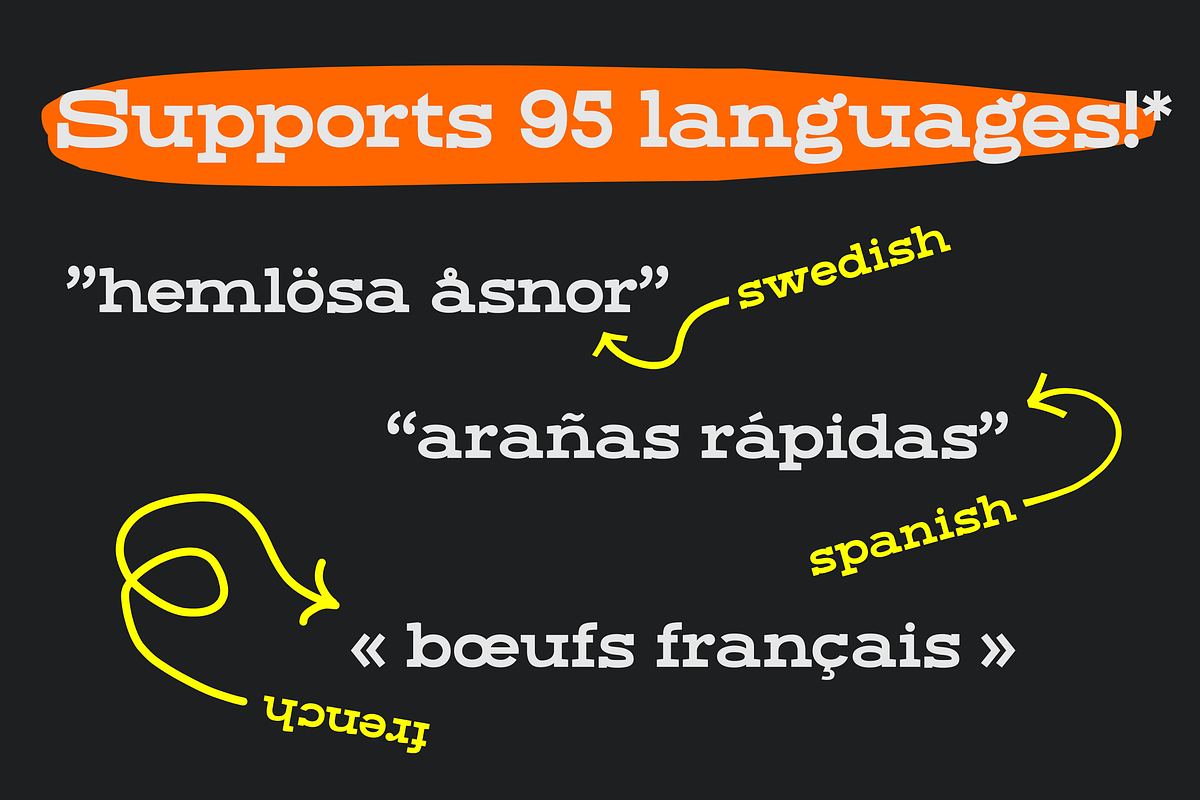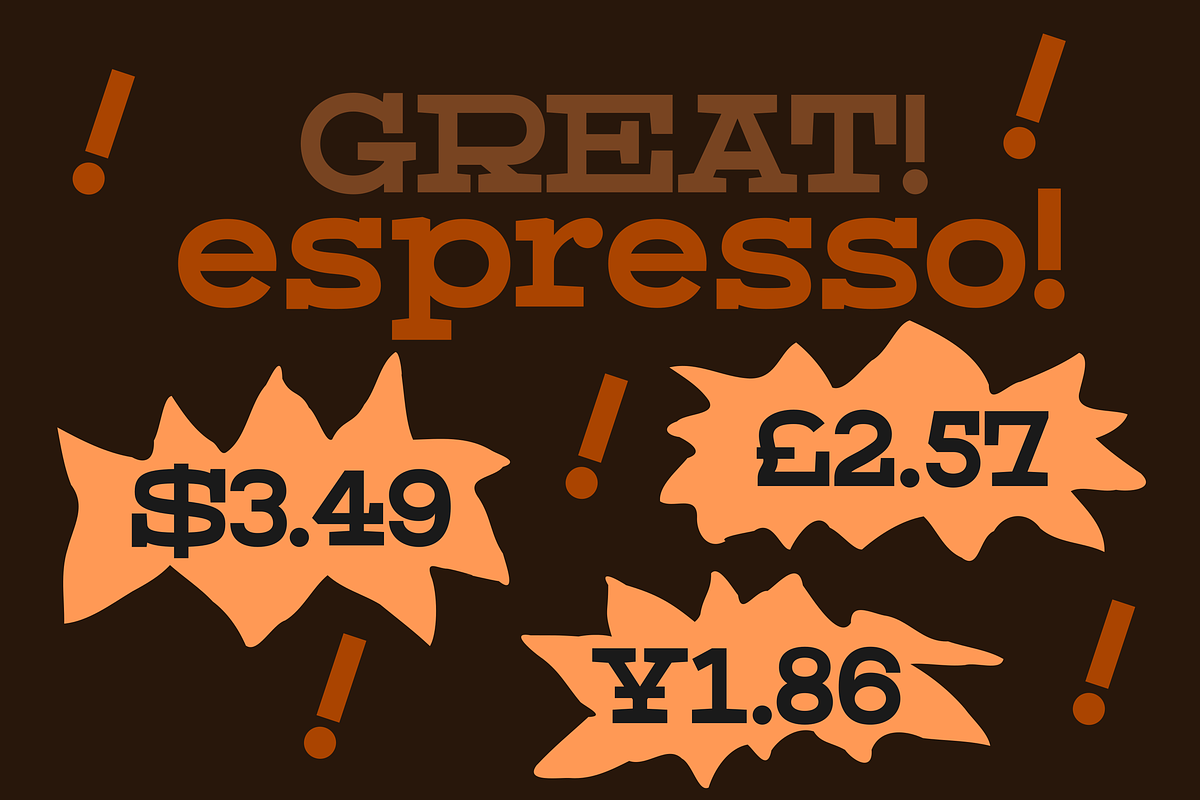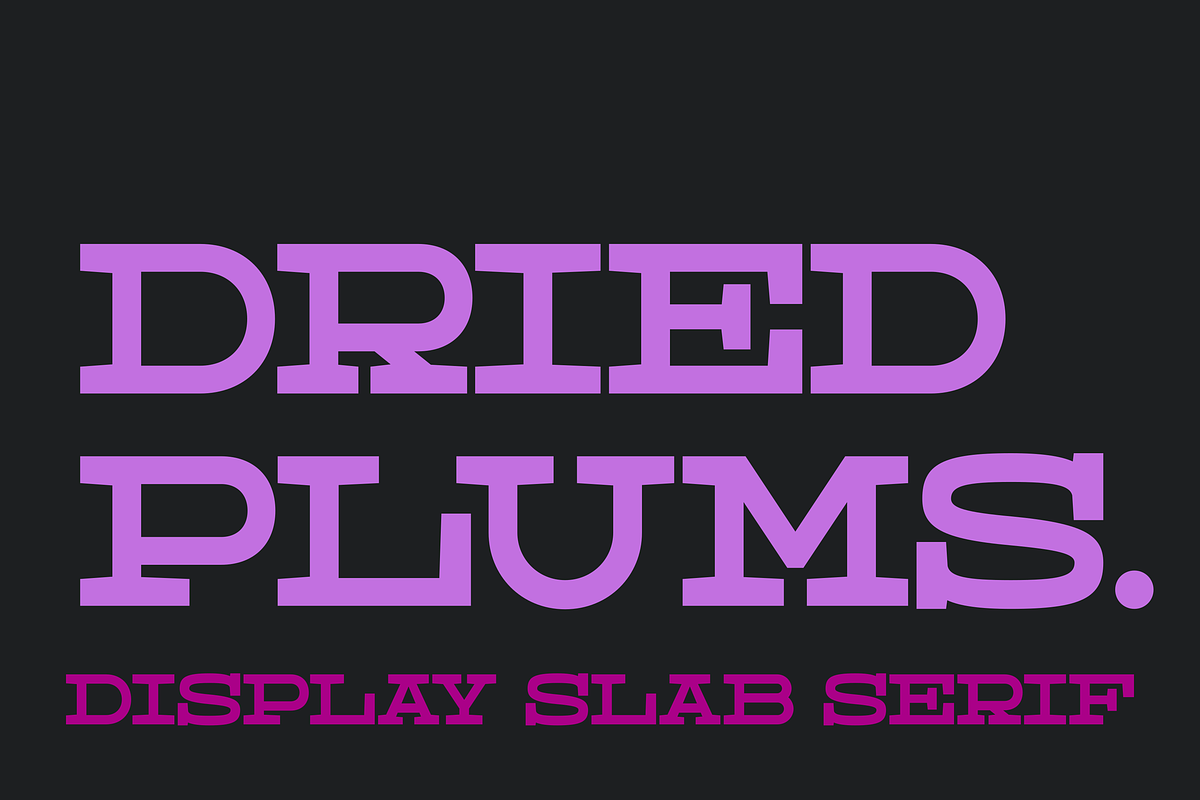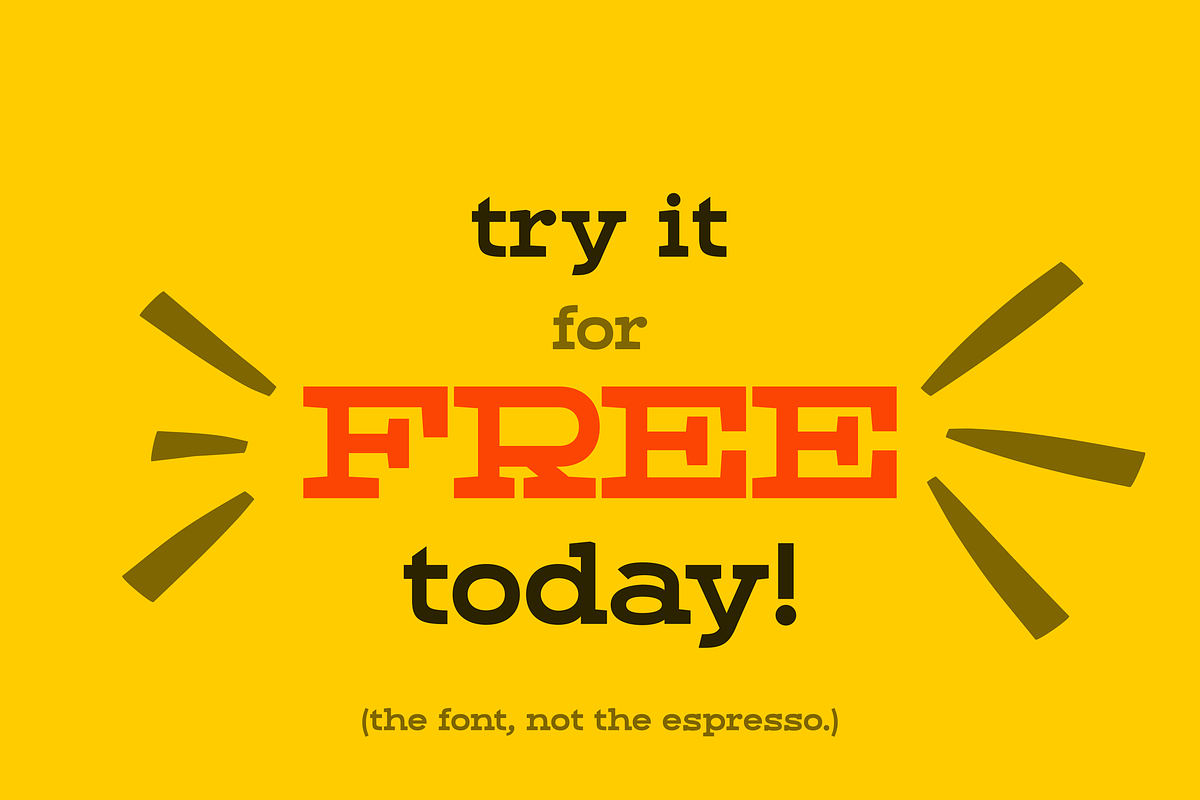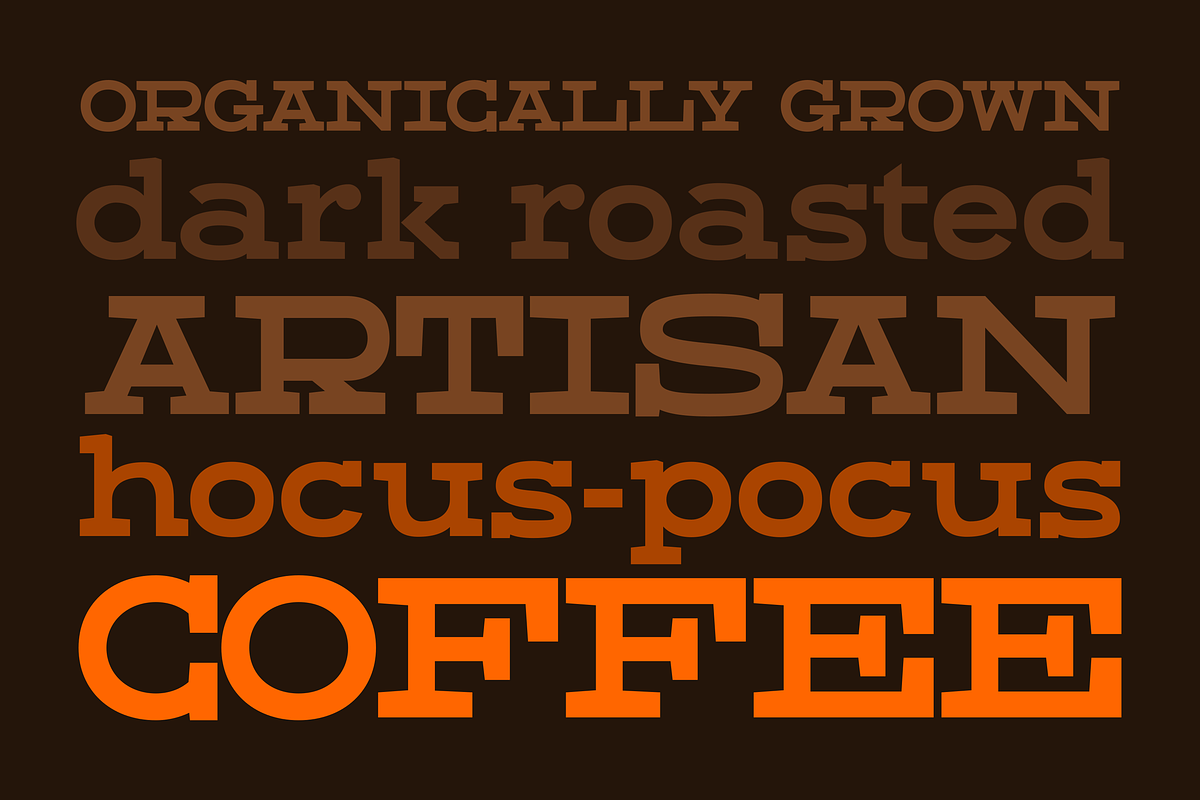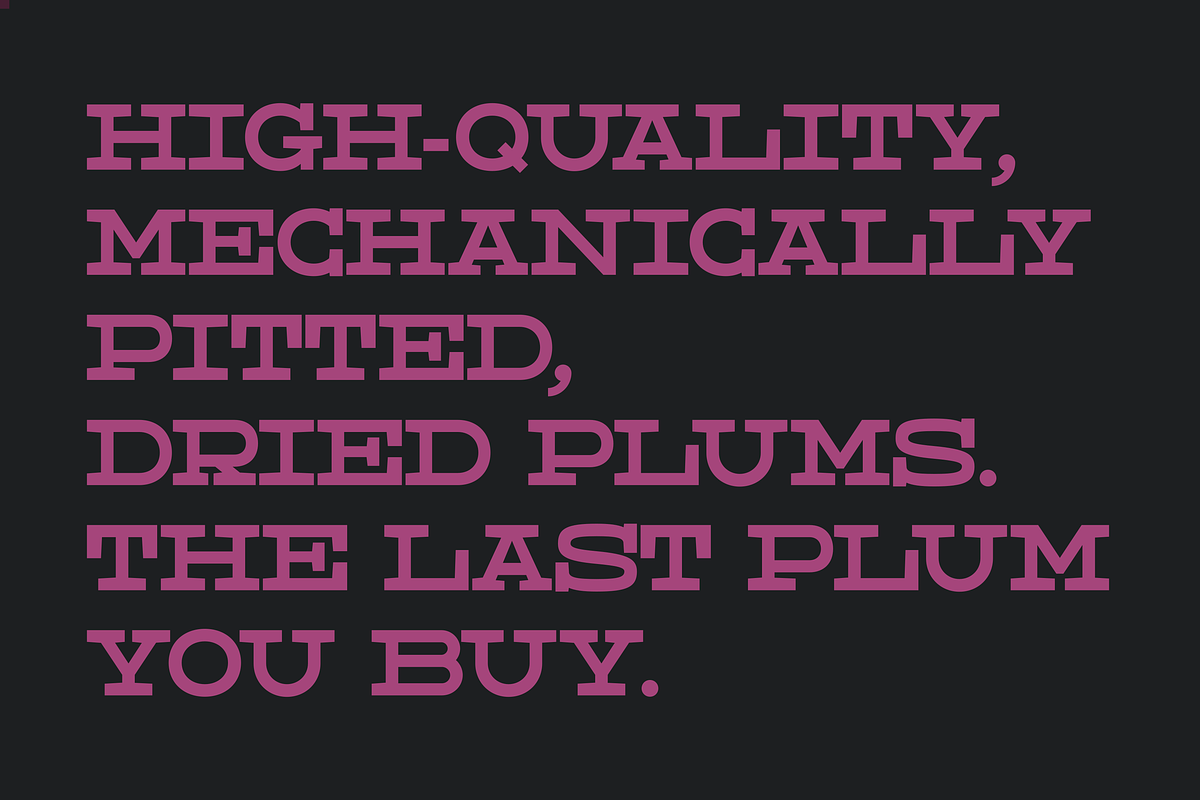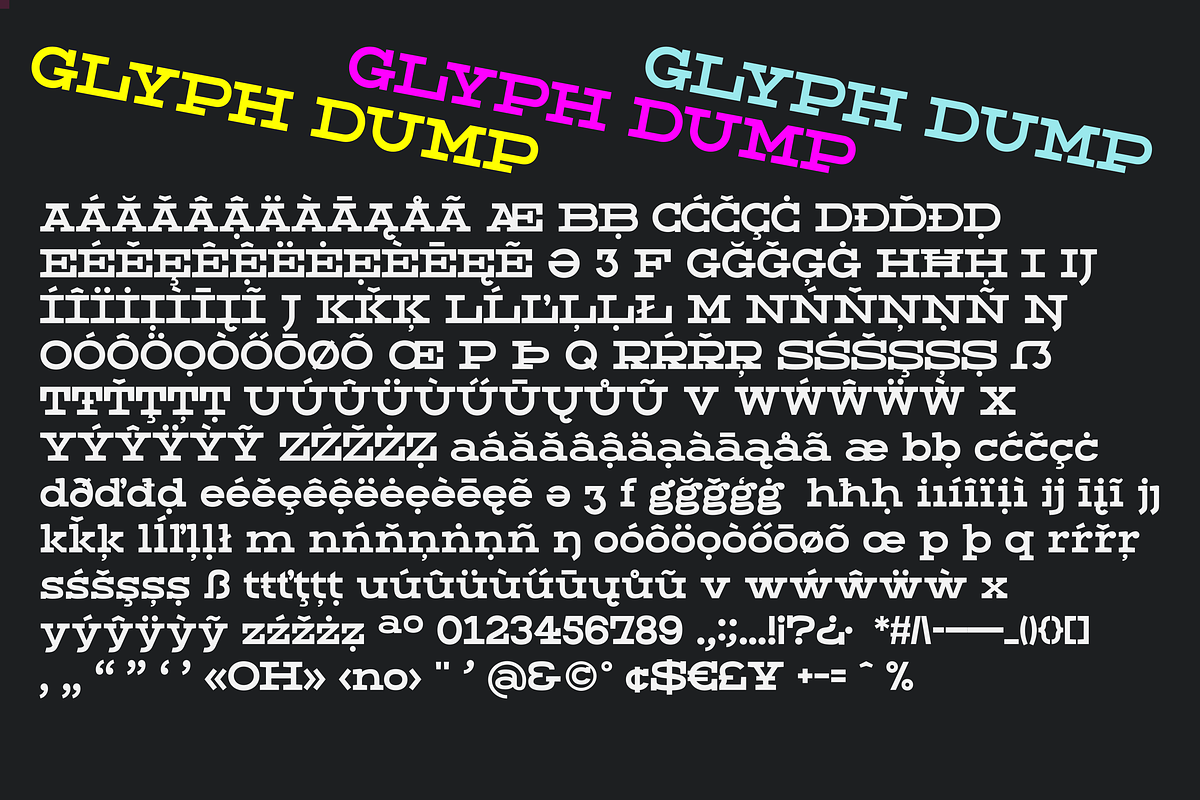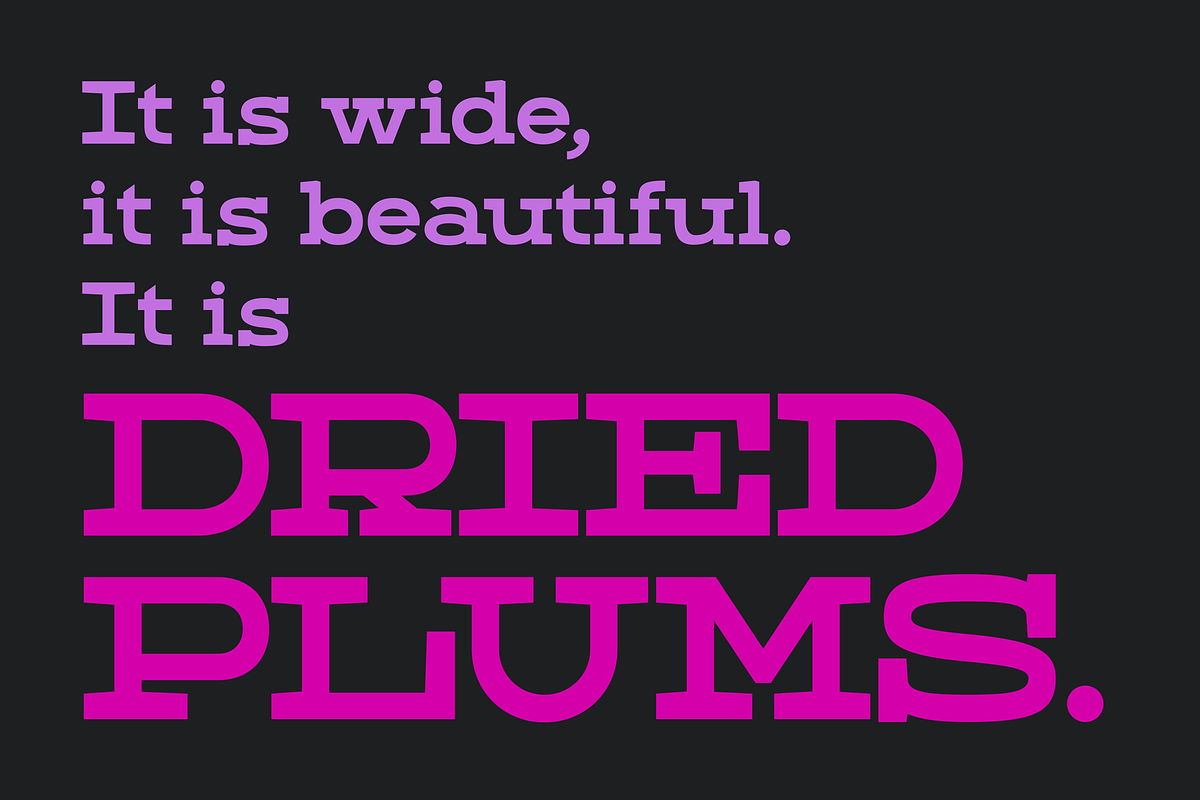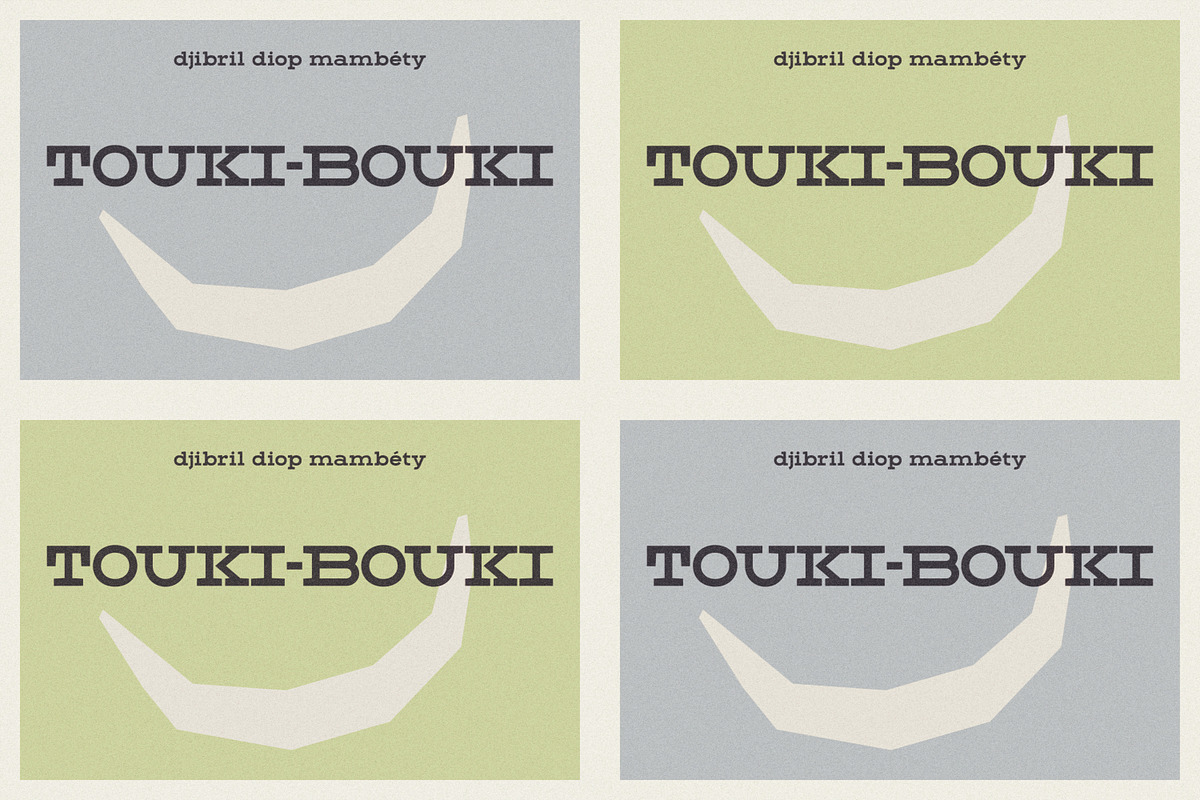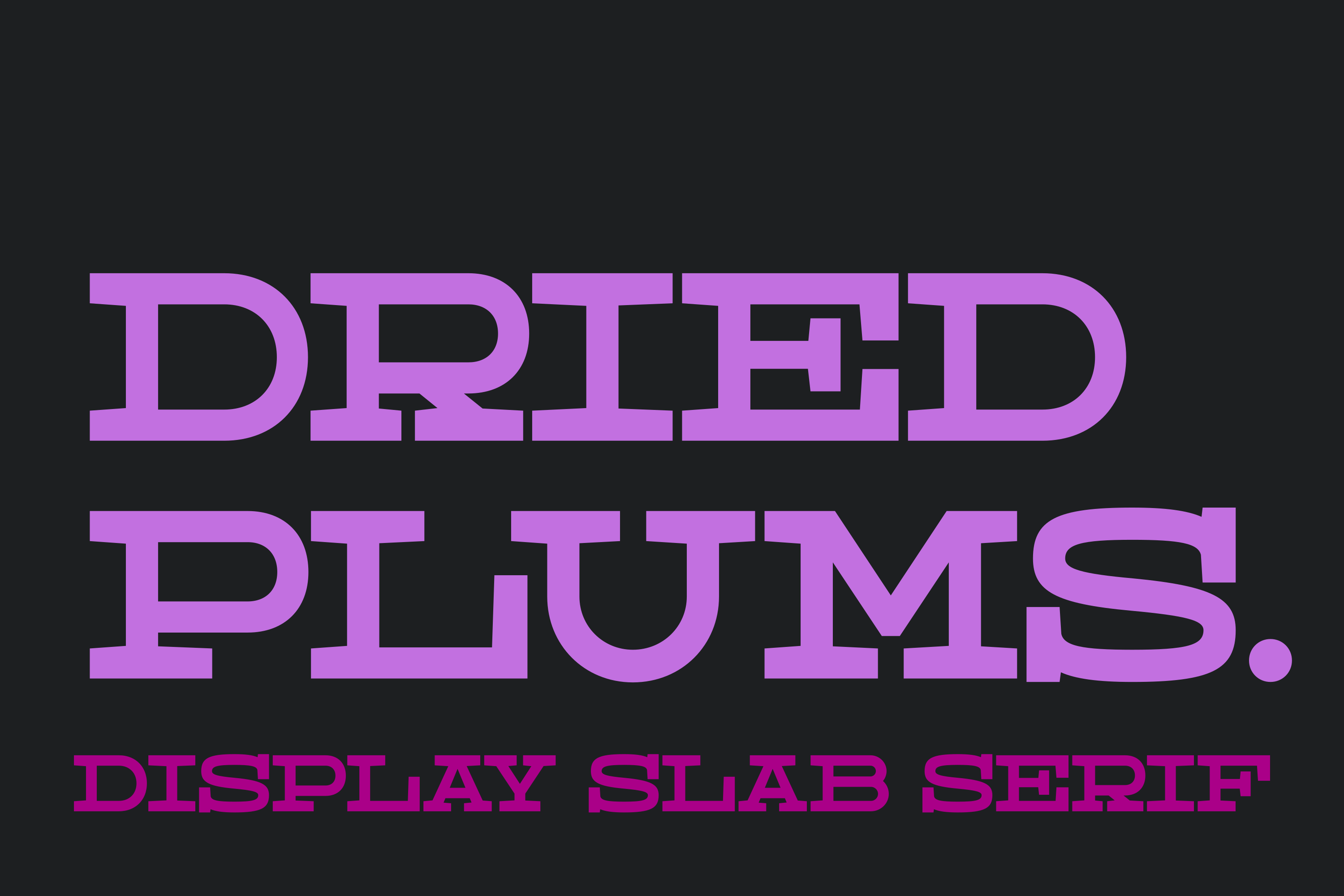
Dried Plums - Display Font
Dried Plums is very bold, in-your-face slab serif font. It's perfect for branding, book covers, posters and such. In all uppercase setting is has a lot punch and assertiveness, but lowercase is a lot more friendlier, even a little goofy.